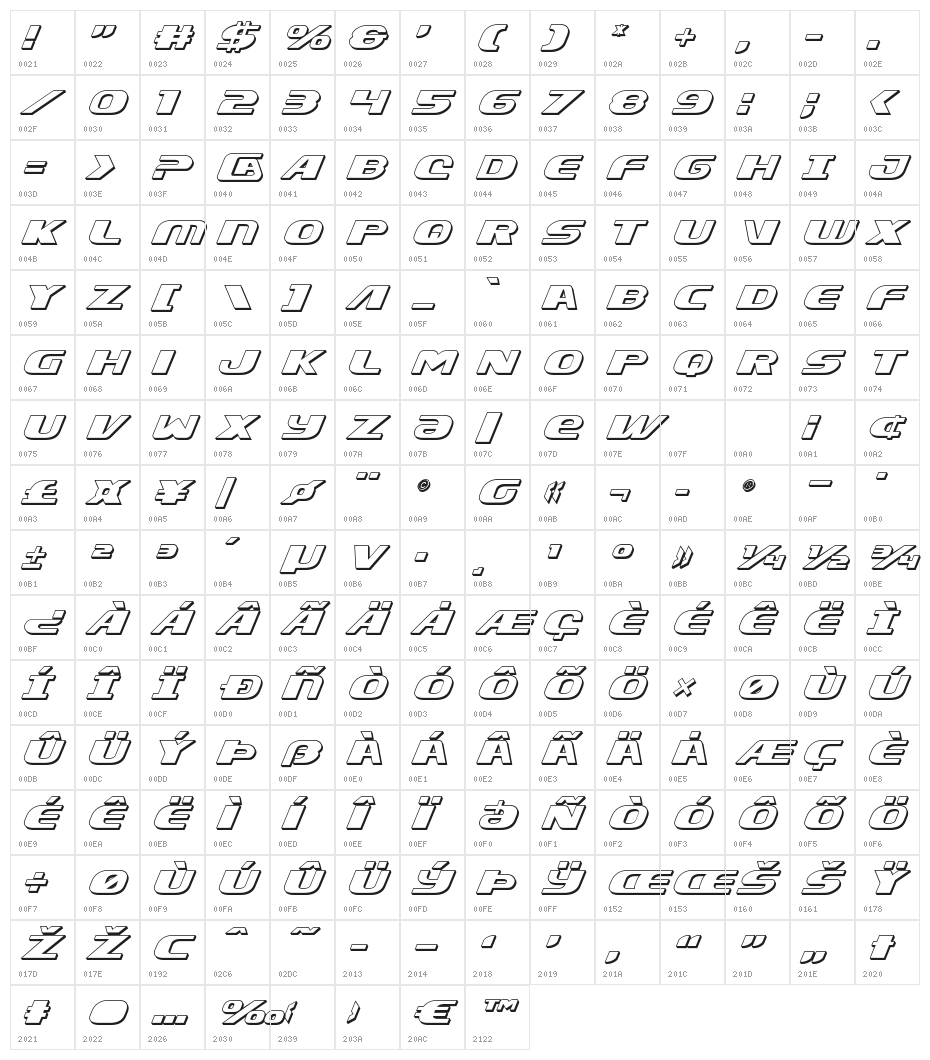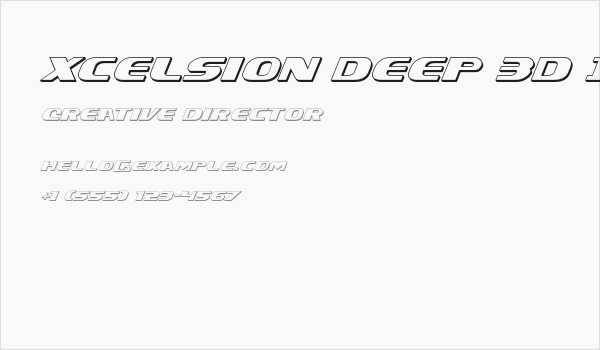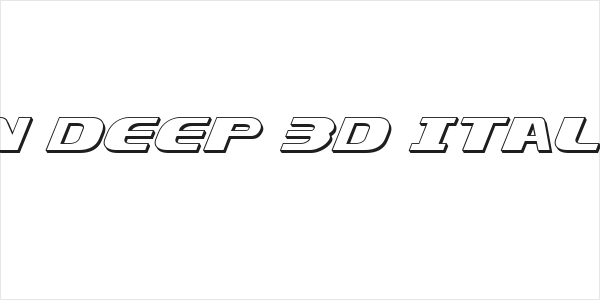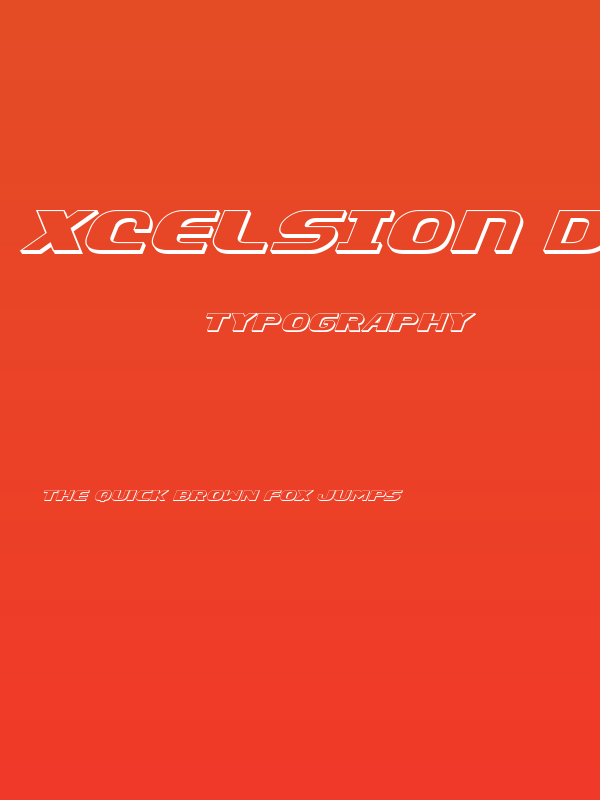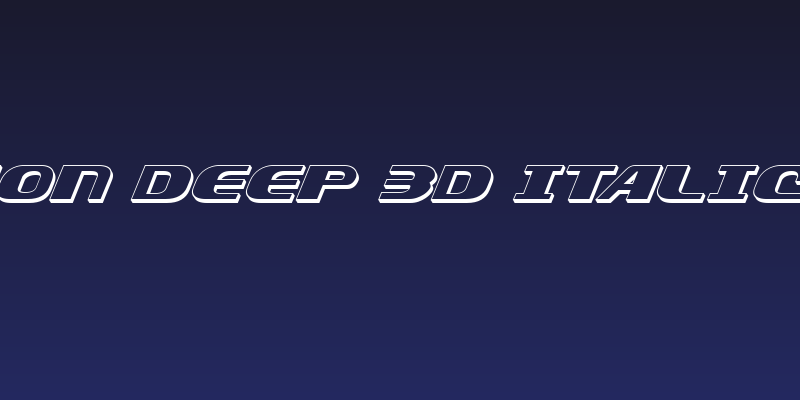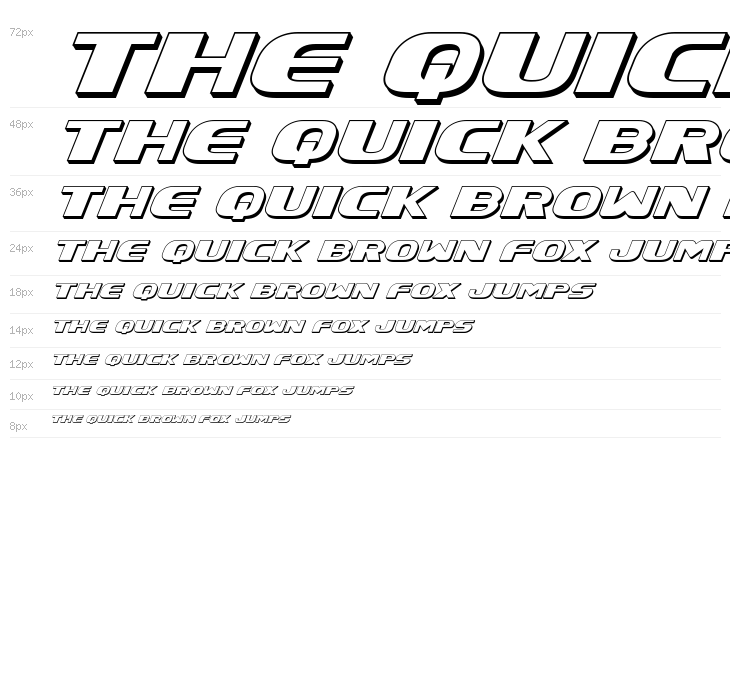
Xcelsion Deep 3D Italic Italic Font
Xcelsion Deep 3D Italic Italic Description
This font features a bold, three-dimensional design with a distinct italic slant, giving it a dynamic and futuristic appearance. The characters are outlined, creating a sense of depth and movement. The uppercase letters are robust and angular, while the numbers and special characters maintain the same bold and italicized style. The font's unique 3D effect makes it stand out, suitable for projects that require a modern and eye-catching look. The spacing between characters is normal, ensuring readability despite the intricate design.
Proposed ProjectsIdeal for video game titles, tech branding, futuristic posters, and sci-fi themed projects.